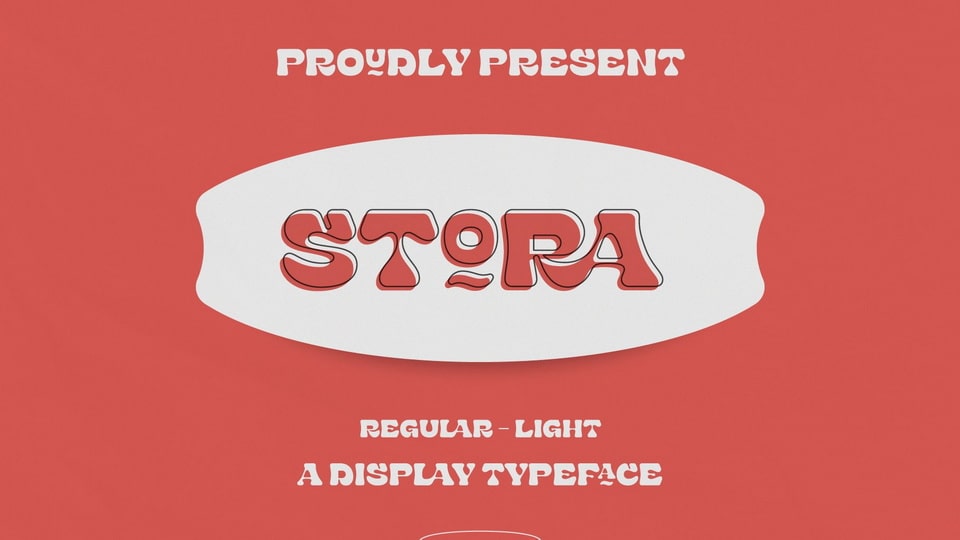
Download Stora font, a display typeface with mid-19th century styles with strong and unique shapes that can handle many design projects. Stora font is perfect for an authentic retro feel on your branding, advertising, poster design and more.